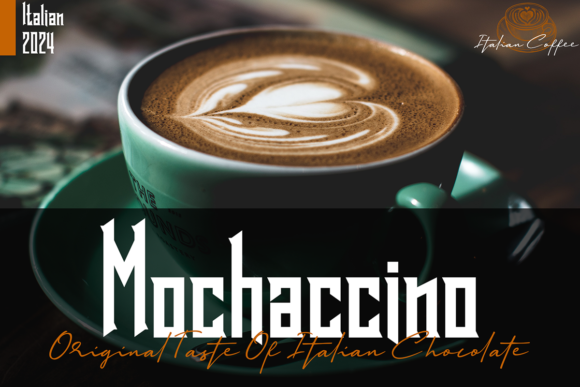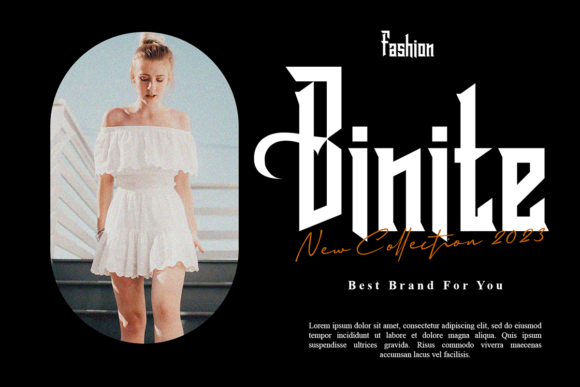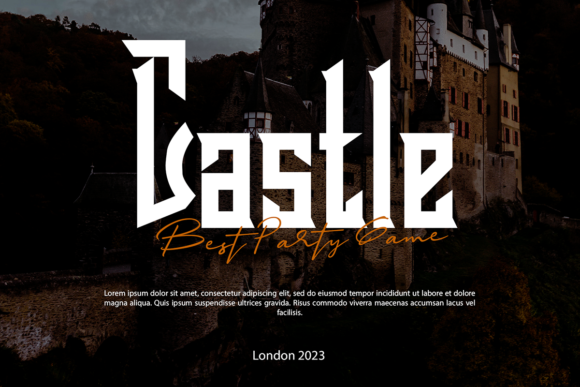
The Elusive Font: A Designer’s Quest for Glory
I’ll never forget the late nights spent scrolling through font libraries, searching for that perfect typeface to bring my design project to life. My client was a luxury brand, and they needed a font that exuded sophistication and mystery. That’s when I stumbled upon the Glory Throne Font – a game-changer for any designer looking to elevate their creative work.
First Impressions: A Love Affair with Glory Throne
The Glory Throne Font is a stunning display font that embodies charm and elegance. Its characters are carefully crafted to transform your designs into true pieces of art. Here’s what I love about it:
• ✨ Elegant and refined aesthetic, perfect for luxury brands and high-end designs
• ✅ Highly legible, even at smaller sizes
• 💫 Unique character set, offering a fresh alternative to traditional fonts
• 🔥 Versatile, suitable for a wide range of design applications, from logos to headlines
The Not-So-Perfect Font: A Few Quirks
While the Glory Throne Font is an exceptional typeface, it’s not without its limitations. Here are a few things to keep in mind:
• 🤔 Limited suitability for body text, due to its display font nature
• ⚠️ Some characters may require manual kerning for optimal spacing
3. Experiment with OpenType features, such as ligatures and stylistic alternates, to add visual interest to your design
4. Explore the font’s glyphs and OpenType features, such as swashes and ornaments, to add a touch of elegance to your design
The Story Behind Glory Throne
The Glory Throne Font was designed by a renowned type designer who aimed to create a typeface that exudes power, elegance, and mystery. Inspired by historical royal fonts and refined through meticulous craftsmanship, Glory Throne is the result of a passion project that evolved into a versatile and stunning display font.
What is the Glory Throne Font best suited for? The Glory Throne Font is ideal for luxury brands, high-end designs, and creative projects that require a touch of sophistication and mystery.
Can I use Glory Throne for body text? While Glory Throne is a highly legible font, it’s primarily designed for display purposes. For body text, consider using a font specifically designed for readability.
Does Glory Throne support OpenType features? Yes, Glory Throne supports OpenType features, including ligatures, stylistic alternates, and glyphs, which can be accessed in compatible design software.